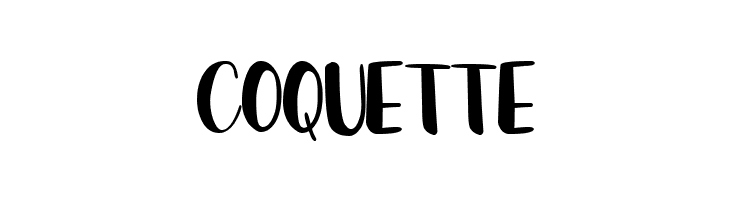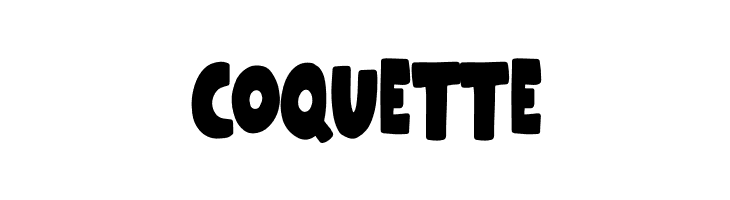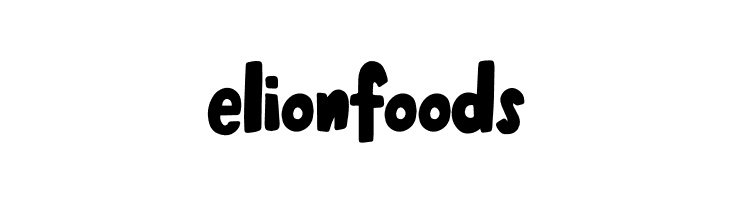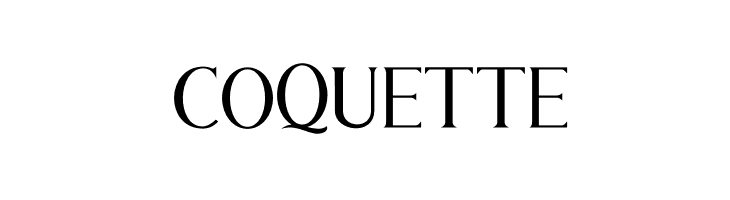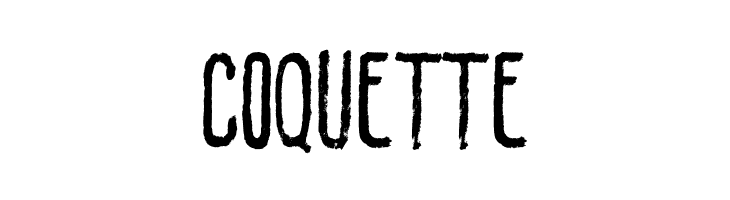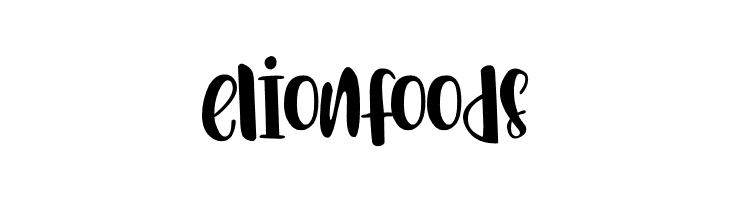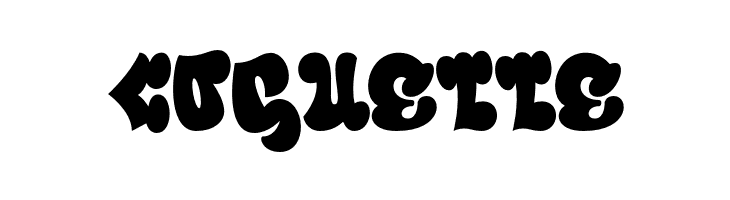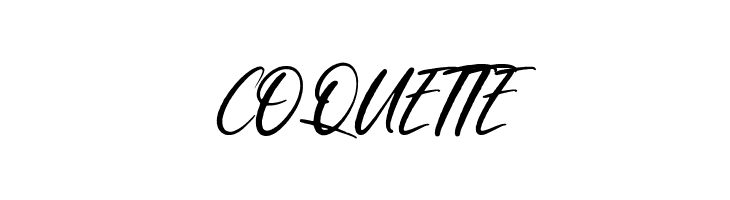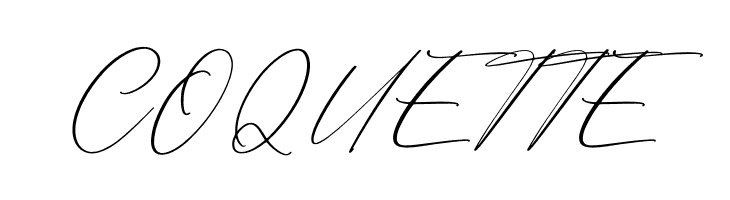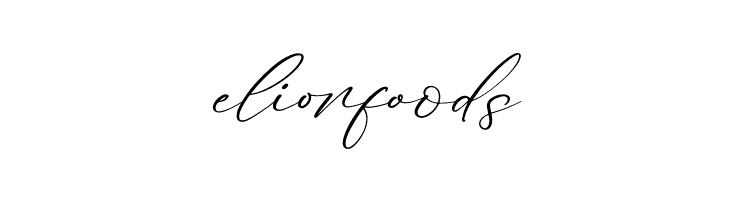
• HelloGeorginaScript
An elegant and sophisticated script font with flowing, cursive style.
• HelloGeorginaScript
A graceful and elegant script font with flowing, cursive letters.
• Hellorain
A dynamic brush script font with an energetic, hand-drawn style.
• HelloSisterSansdemo
A casual handwritten font with smooth, slightly slanted strokes.
• HelloUnicorn
A playful, handwritten font with rounded edges and a casual style.
• HelloUnicorn
A playful, handwritten font with rounded edges and a casual, whimsical style.
• Hemilton
A bold, handwritten font with fluid, connected strokes and a lively appearance.
• Hemilton Italic
A dynamic and fluid script font with elegant, flowing lines and cursive letterforms.
• HenjuDemo-Bold
A bold, modern sans-serif font with a clean and geometric style.
• Hensleyton
Bold cursive script with elegant curves.
• Her Garden Regular
• Herittage
Elegant handwritten script font.
• Herlianty
An elegant, flowing script font with a handwritten appearance.
• Hertina
An elegant script font with ornate, flowing letterforms and intricate flourishes.
• Hey Christmas
A whimsical, handwritten script with tall, narrow, and fluid letterforms.
• Hey Felix
• Hey Jelitta Demo
Energetic handwritten script with loose, natural strokes.
• Hey Kids
• Hey Kidstoon
A playful, bold font with rounded, bubbly characters and a hand-drawn feel.
• Hey Lover
A lively and flowing script font with elegant curves and smooth connections.
• HFF Ribbon
A decorative script font with a ribbon-like, flowing style and high contrast strokes.
• High Moon
A playful, handwritten font with fluid strokes and a lively aesthetic.